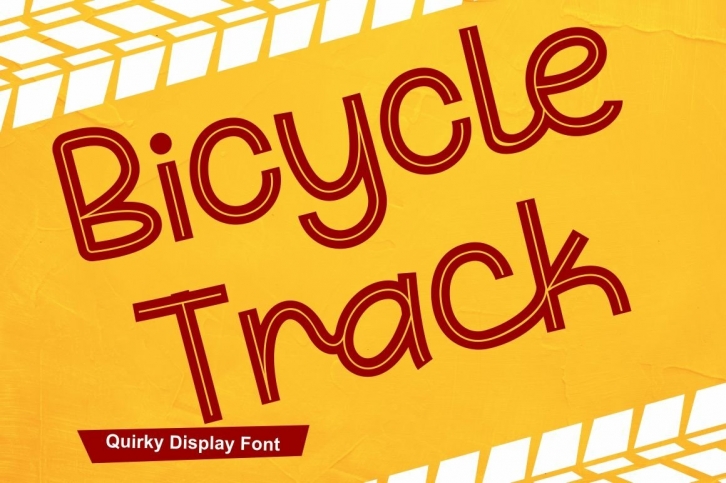
Bicycle Track is a trendy and unique font with an authentic style. It was designed by PutraCetol Studio and it's a great choice for creative people who need such a font. It was released on September 16, 2021 and the file size is 17.65 MB. Bicycle Track will add an organic vibe to any design idea!